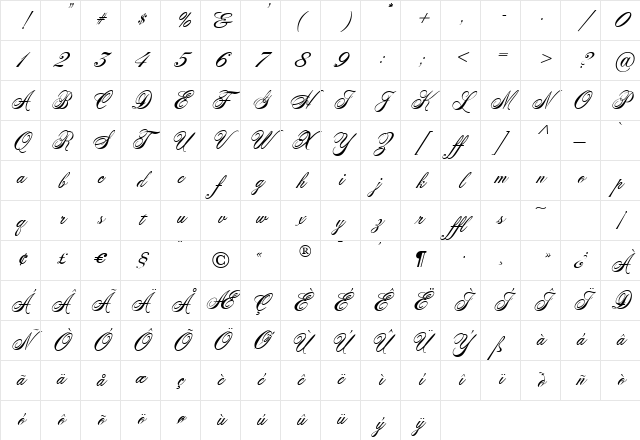
AcroterionJF Regular
Design Context for AcroterionJF
AcroterionJF is a composed and adaptable typeface that performs quietly and consistently across a wide range of design contexts.